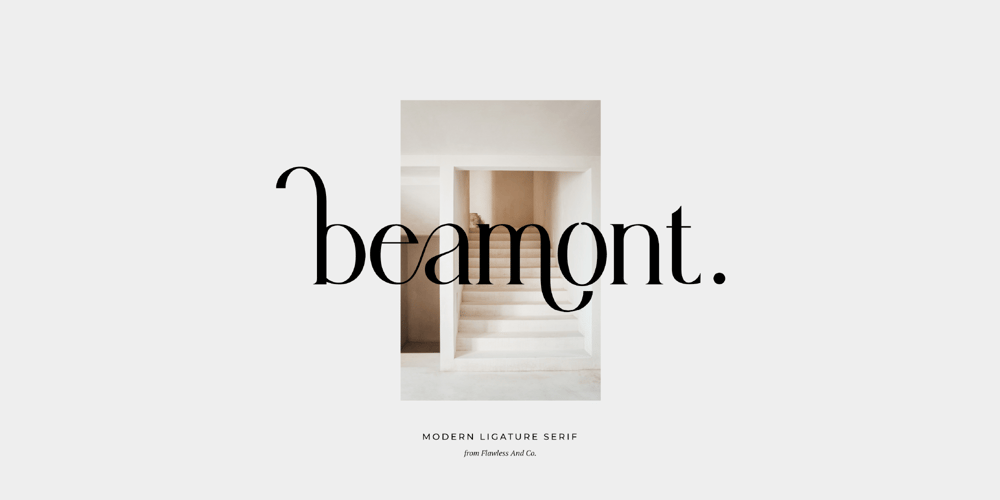
Beamont Font Family was designed by Achmad Yani and published by Flawlessandco. Beamont contains 1 styles and family package options. Beamont is a Serif Typeface with Elegant vibes in each character with some alternate.There’s some connected letters and some alternates that suitable for any graphic designs such as branding materials, t-shirt, print, business cards, logo, poster, t-shirt, photography, quotes .etcThis font support for some multilingual. Also contains uppercase A-Z and lowercase a-z, alternate character, numbers 0-9, and some punctuation.If you need help, just write me! Thanks so much for checking out my shop!